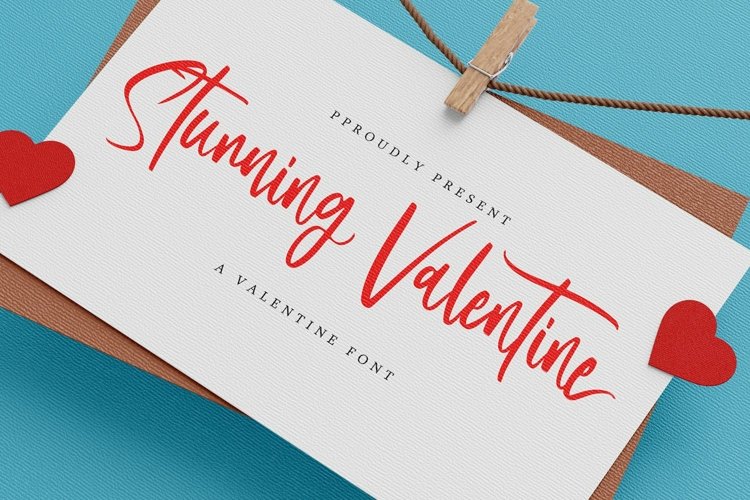
Web Font Stunning Valentine - A Valentine Font that contain lowercase, uppercase, symbol, and also support multi language. There’s a lot ligatures in this font. This Font also comes with ligatures, alternates and many more. this font suitable for fashion, branding, catalog and other design what you want.